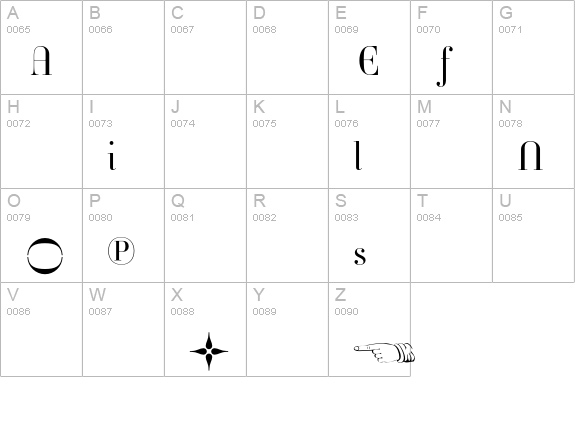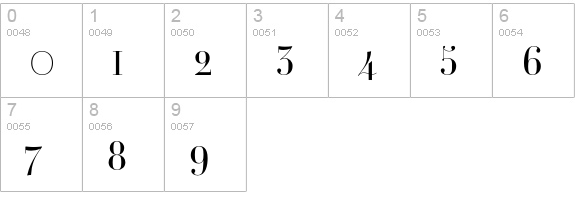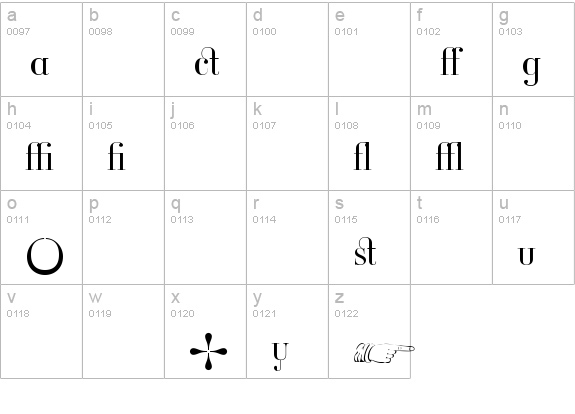
Ambroise Alternates Light is a refined, elegant variant in the Ambroise typeface family \xE2\x80\x94 well suited to elegant body text, refined sub-headings, and luxury branding.
Ambroise Alternates Light font is a sleek and elegant typeface that exudes sophistication and modernity. Its light weight conveys a sense of delicacy and refinement, making it perfect for projects that require a touch of subtlety and grace. The alternate characters add a unique flair to the font, giving designers the freedom to experiment and create truly distinctive typography. Best of all, Ambroise Alternates Light font is freely available to download at FontsMarket.com. This means that you can easily access this stunning typeface and incorporate it into your designs without any cost. Whether you're working on branding, editorial design, or any other creative project, Ambroise Alternates Light font is sure to elevate your work and leave a lasting impression.